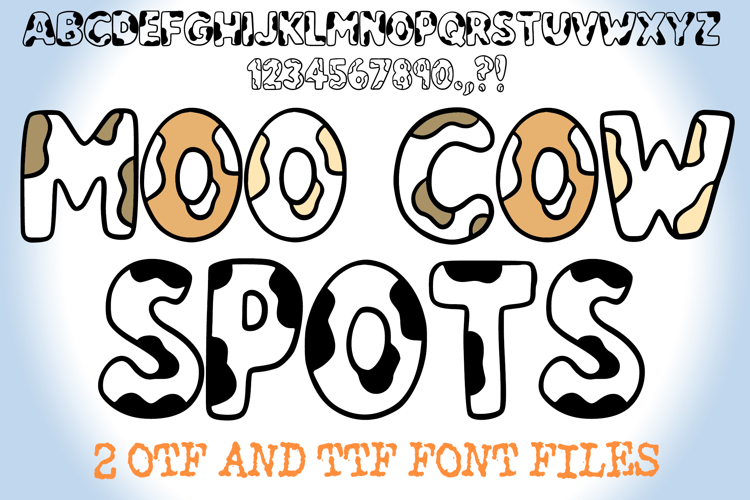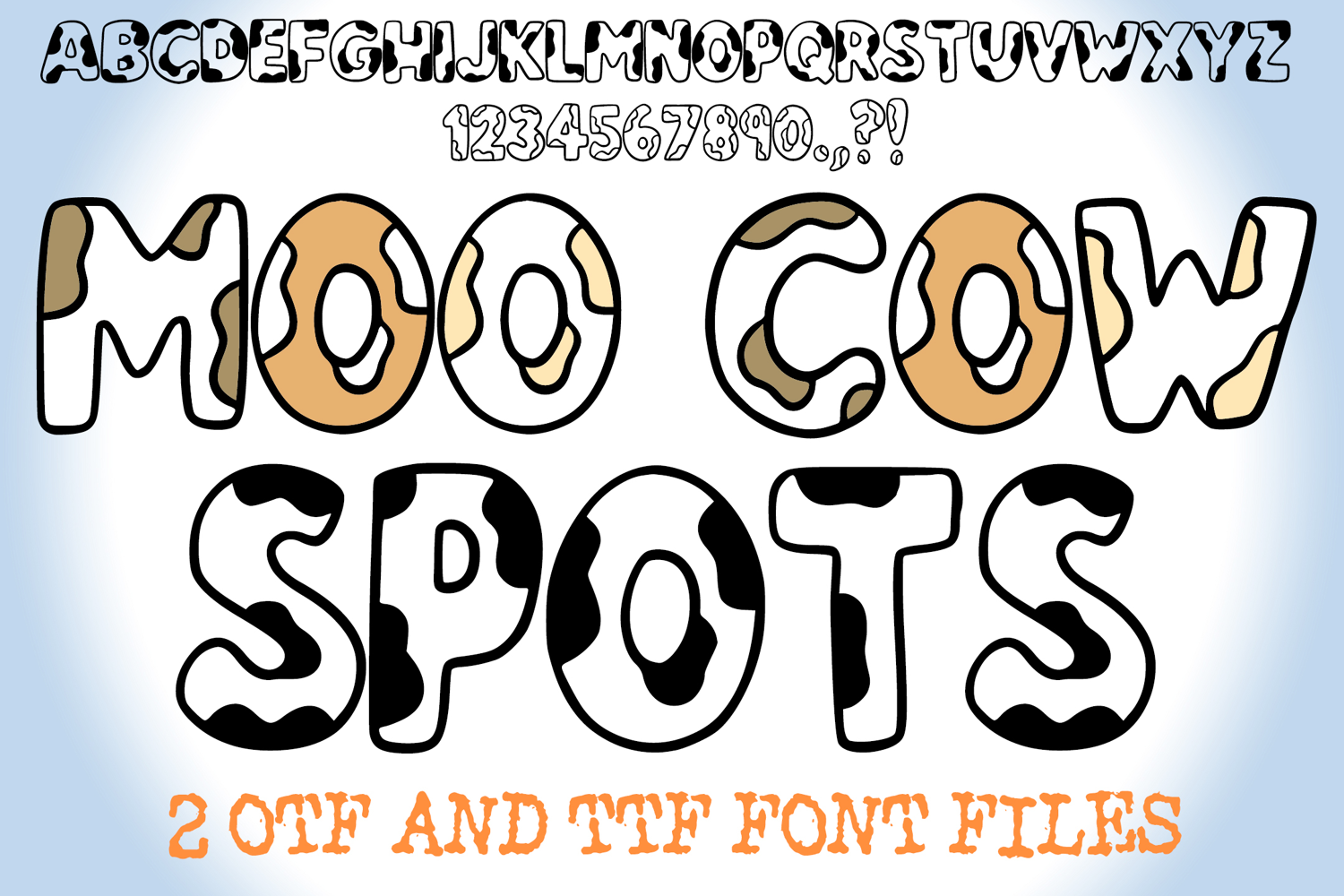
Moo Cow Spots Lettering ABC Font Animal Print Type OTF
Bring a touch of the farm to your designs with the Moo Cow Font, a playful and bold cow print typeface available in two unique versions — one with black cow spots and one with a clean outlined look.
This font captures the charm of country life, featuring chunky letters filled with cow print patterns that make your text stand out in any project. Perfect for farmhouse decor, kids’ designs, western themes, animal party invitations, t-shirts, branding, Cricut projects, and more!
Add some moo-tiful personality to your creative work with this fun and friendly cow-inspired font!
Two styles: Spotted Cow Version & Outline Version